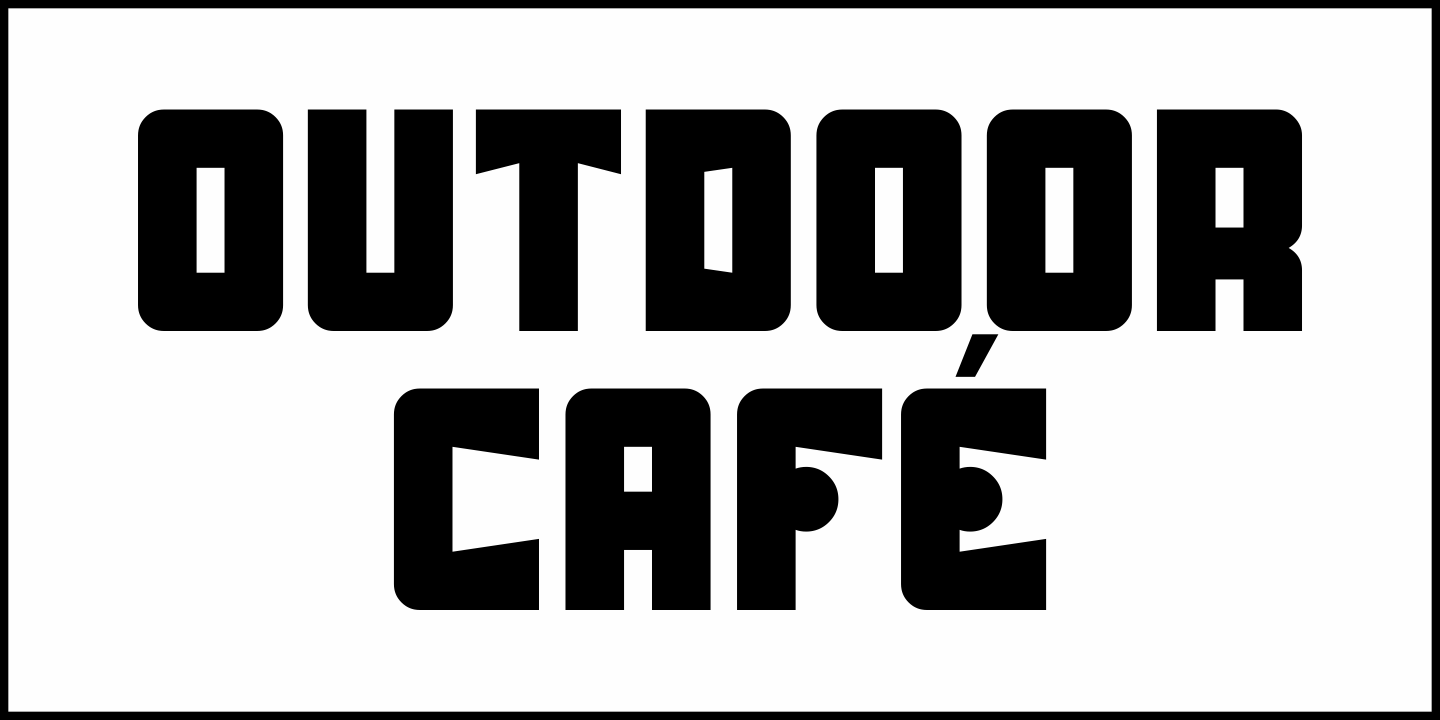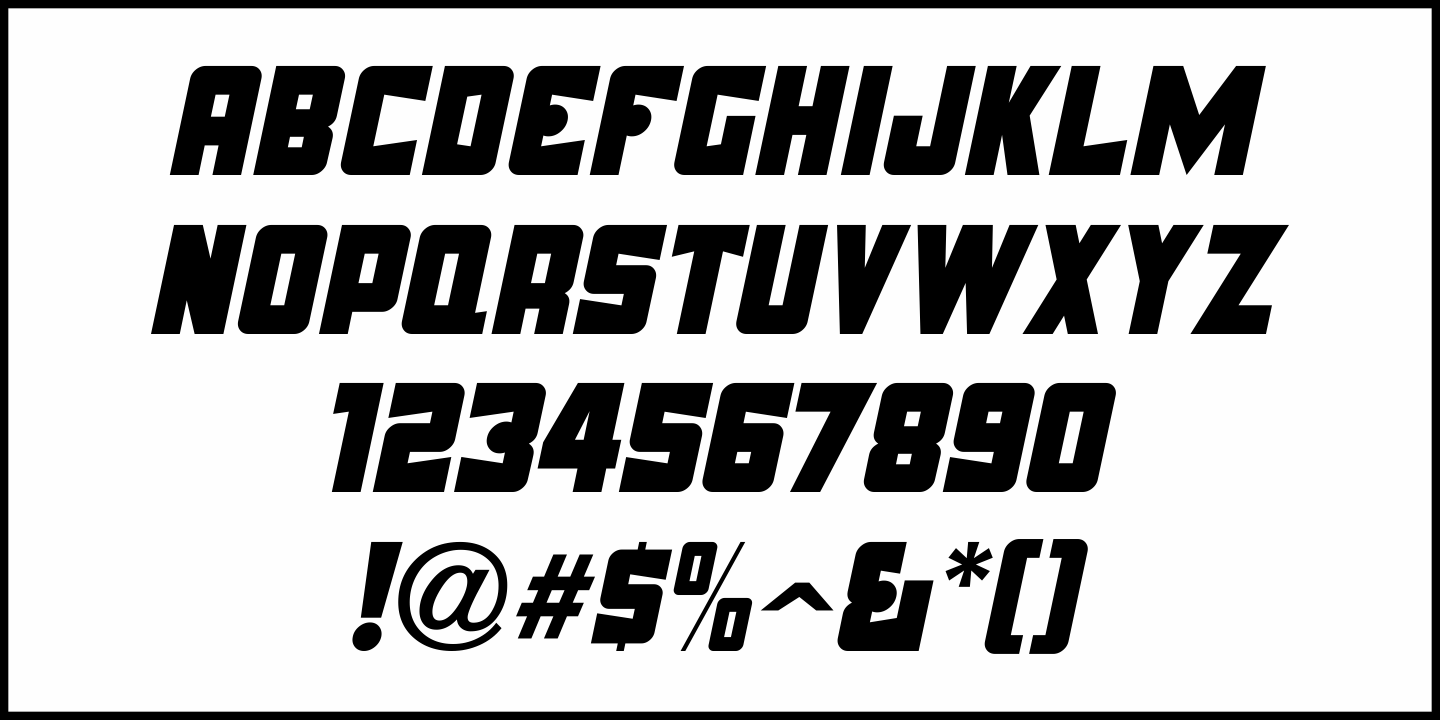
Outdoor Cafe
The movie poster for the 1937 film 'Cafe Metropoleā€ served as the basis for Outdoor Cafe JNL, which is available in both regular and oblique versions.
The extrabold, stylized letter forms with their rounded corners typifies the wide variety of typographic styles the Art Deco period offered.
Outdoor Cafe JNL Regular by Jeff Levine Fonts